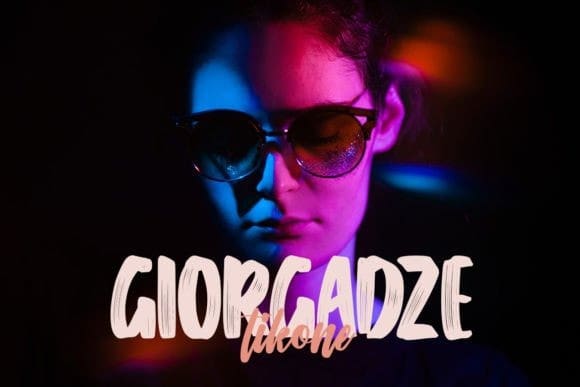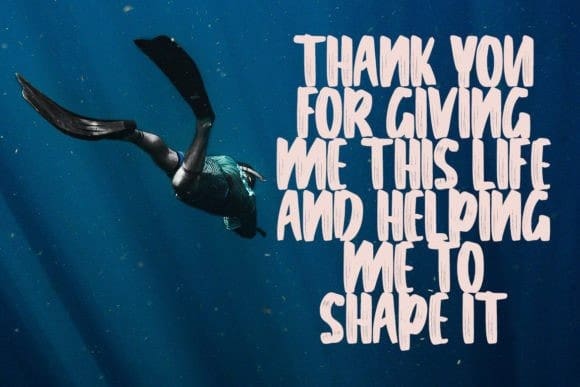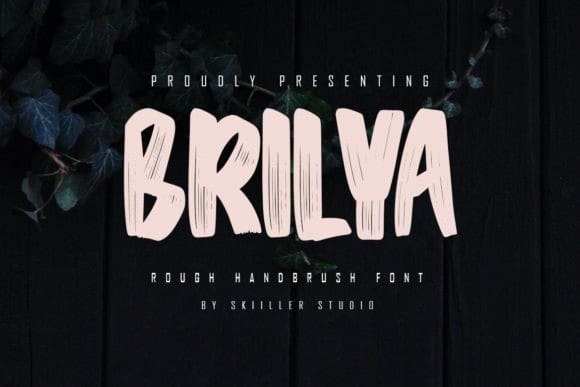
Brilya Brush Font
Brilya Brush Font was inspired by the typography of natural brushes. Written in quick motion using a brush pen, it’s a bit dry and looks realistic. It is suitable for branding or magazine fashion design, offers, logos, product packaging, headlines, posters, merchandise, social media & other greeting cards.